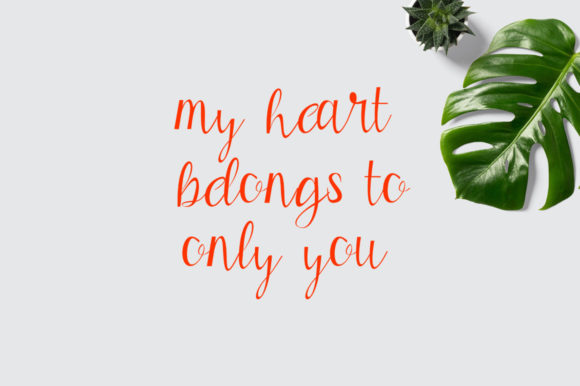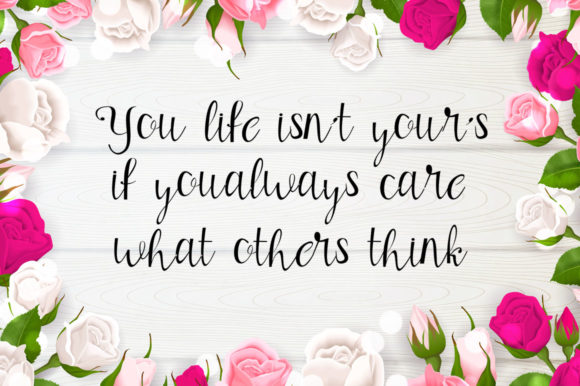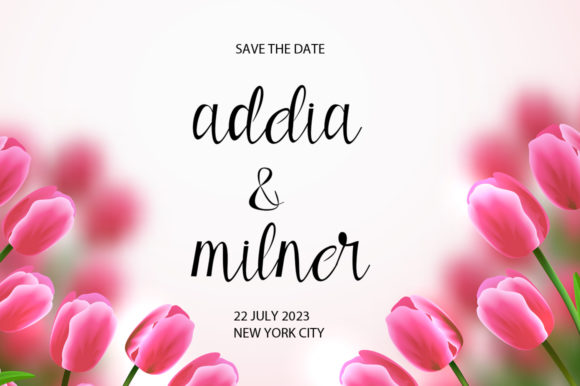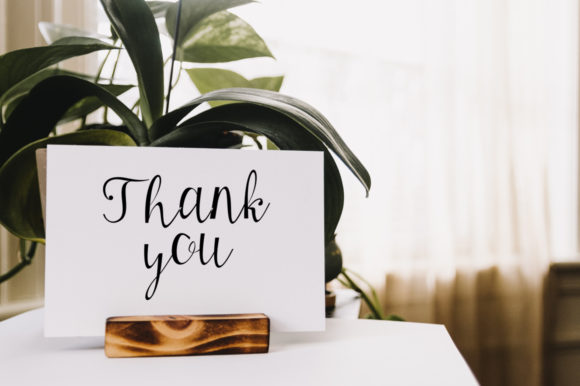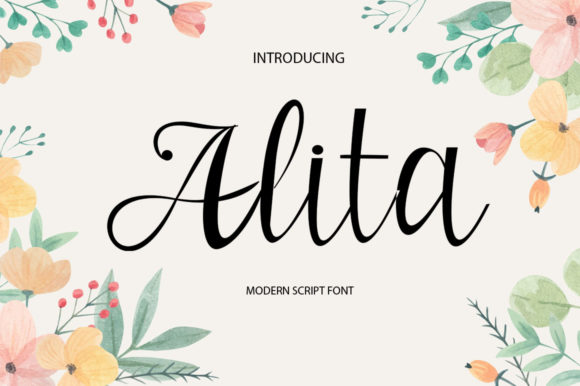
Introducing Alita Font: A Timeless Handwritten Masterpiece
Are you a designer or crafter looking for a font that can elevate your creative projects to the next level? Look no further than Alita Font, a lovely and timeless handwritten font that is sure to capture your audience’s attention. In this article, we’ll dive into the features and benefits of Alita Font, and explore how it can be used to create stunning logos, branding, and quotes.
A Unique and Beautiful Touch
One of the standout features of Alita Font is its unique and beautiful touch. Every letter has been carefully crafted to bring a sense of elegance and sophistication to your designs. The font’s handwritten style gives it a personal and approachable feel, making it perfect for creating logos, branding, and quotes that resonate with your audience.
Alita Font is PUA (Private Use Area) encoded, which means that you can access all of the glyphs and swashes with ease. This encoding allows you to unlock the full potential of the font, giving you the flexibility to create complex and visually appealing designs. Whether you’re a seasoned designer or a crafty DIY enthusiast, PUA encoding makes it easy to get the most out of Alita Font.
Ideal for Logos, Branding, and Quotes
So, what makes Alita Font the perfect choice for logos, branding, and quotes? For starters, the font’s handwritten style gives it a personal and relatable feel, making it perfect for creating branding that resonates with your audience. Additionally, the font’s unique and beautiful touch ensures that your logos and quotes stand out from the crowd, grabbing attention and leaving a lasting impression.
With Alita Font, the design possibilities are endless. Use it to create:
- Eye-catching logos that capture your brand’s personality
- Stunning branding materials, such as business cards and brochures
- Inspirational quotes that motivate and uplift your audience
- Beautiful stationery, such as invitations and greeting cards
Why Choose Alita Font?
So, why choose Alita Font over other fonts on the market? Here are just a few reasons:
- Unique and beautiful design: Alita Font’s handwritten style and unique touch set it apart from other fonts.
- PUA encoded: Easy access to glyphs and swashes makes designing a breeze.
- Versatile: Use Alita Font for a wide range of design projects, from logos and branding to quotes and stationery.
- Timeless: Alita Font’s classic style ensures that your designs will remain relevant for years to come.
Get Creative with Alita Font
In conclusion, Alita Font is a timeless handwritten font that is sure to elevate your creative projects to the next level. With its unique and beautiful touch, PUA encoding, and versatility, Alita Font is the perfect choice for designers and crafters alike. Whether you’re looking to create eye-catching logos, stunning branding, or inspirational quotes, Alita Font has got you covered. So why wait? Get creative with Alita Font today!